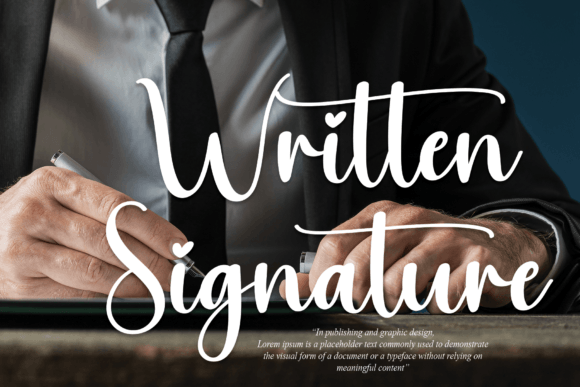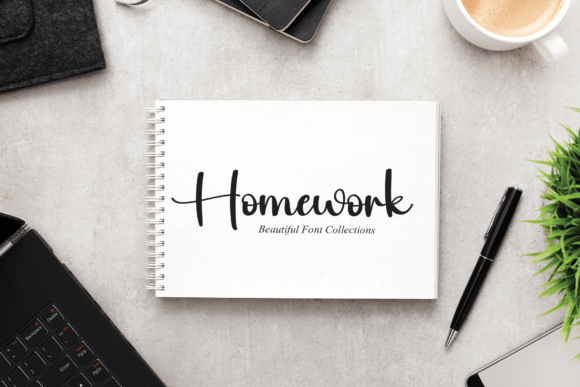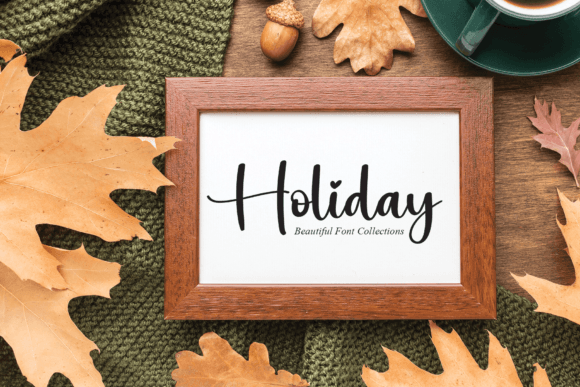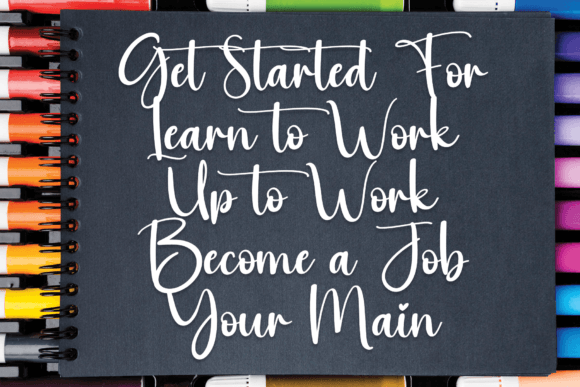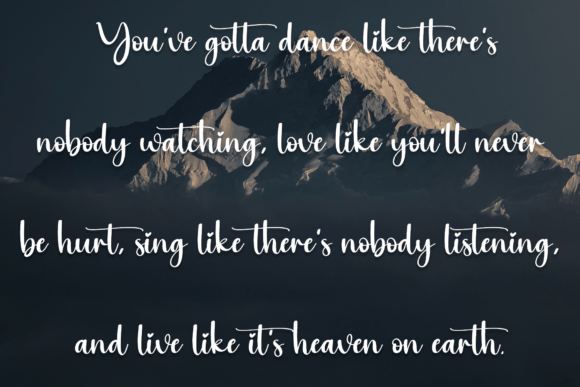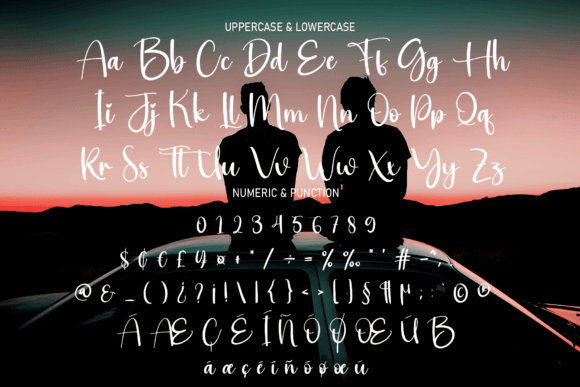
The Magic of Handwritten Elegance: Broisther Font
Have you ever sat down with a blank page and a pen, feeling the rush of creativity as your ideas begin to flow? Maybe you’re brainstorming a new logo for your business, or sketching out a heartfelt message for a loved one. Whatever your creative spark, we know that the right font can elevate your design from ordinary to extraordinary.
Enter Broisther Font, a beautifully crafted, magical handwritten font that adds a touch of sophistication and whimsy to any project. Whether you’re creating social media graphics for Instagram, designing calligraphy scripts for DIY projects, or simply looking for a unique way to express yourself, Broisther Font is the perfect companion for your creative journey.
Broisther Font Key Features
- Font Family: Broisther Font
- Unique Characteristics: The Broisther Font features a unique blend of modern and vintage elements, with a distinctive curved and rounded design that adds a touch of elegance and sophistication
Broisther Font Review
I recently had the chance to work with the Broisther Font, and I have to say it’s a unique addition to any design project. ✨ The font’s quirky and playful feel makes it perfect for creative and whimsical designs, such as children’s books, advertisements, or social media graphics.
- ✨ The font’s varying weights and styles make it versatile for different design applications.
- ✨ The character set is comprehensive, making it easy to use in a variety of languages.
- ✨ The font is highly customizable, allowing designers to adjust the spacing and kerning to suit their needs.
However, I did encounter a few limitations that prevented me from giving it a full 5-star rating. ⚠️ The font’s spacing can be a bit inconsistent at times, which can affect the overall readability of the text. Additionally, the font may not be the best choice for formal or professional designs, as it can come across as too casual.
Overall, I would recommend the Broisther Font for designers looking to add a touch of personality to their projects. With its unique style and customization options, it’s a great choice for creative and playful designs. However, it may not be the best fit for more formal or professional projects.
The Broisther Font is ideal for:
- Creating unique and eye-catching headlines.
- Designing elegant and sophisticated brand identities.
- Adding a touch of sophistication to digital and print materials.
What is the recommended font size and line height for the Broisther Font?
The recommended font size for the Broisther Font is between 12pt and 18pt, while the recommended line height is 1.2 to 1.5 times the font size. This will ensure optimal readability and legibility of the font in your design projects.